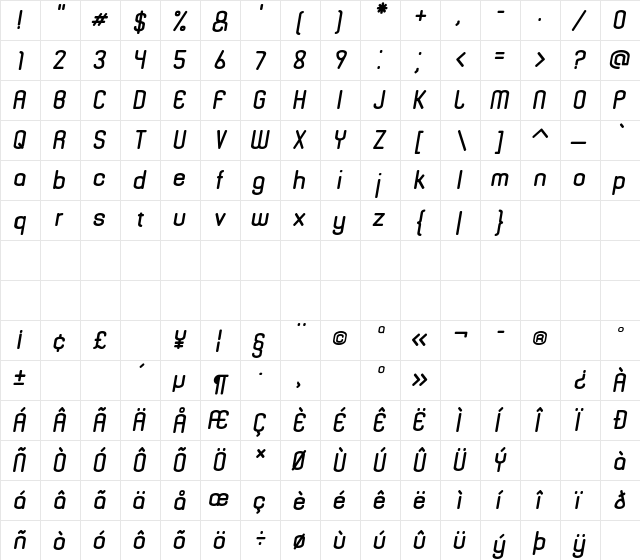
Unity Italic
Design Context for Unity Typeface
Unity takes a measured approach to typography — its balanced proportions and neutral character make it a reliable workhorse for both digital and print work. The slanted form adds forward momentum and visual energy.
Pro Tip: Use Unity for emphasis, pull quotes, and subheadings where its slanted energy can add rhythm to the layout.